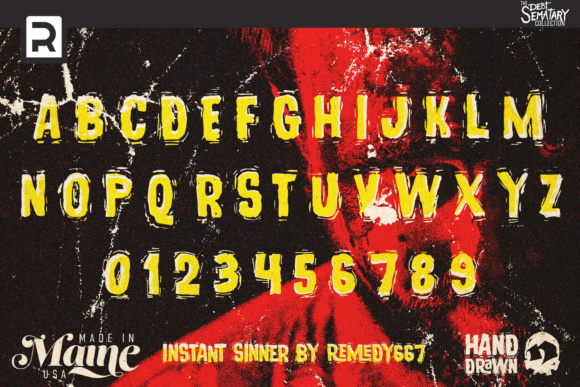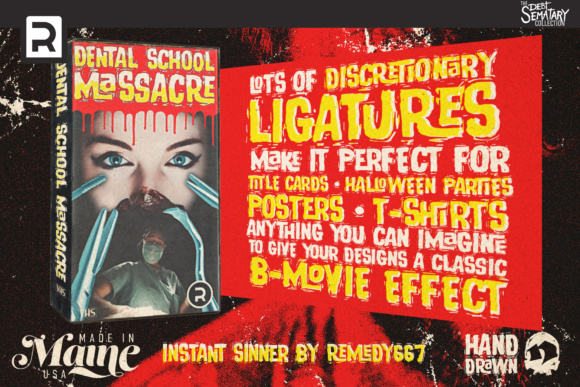
Introduction to Instant Sinner Font
The Instant Sinner is a handmade terror font.
It was inspired by vintage sci-fi and horror propaganda It’s loaded with discretionary ligatures and alternates characters.
Key Features of Instant Sinner Font